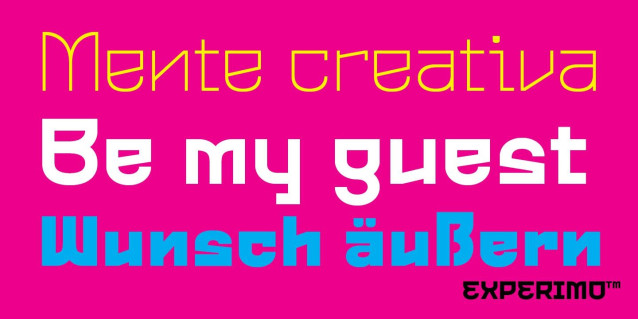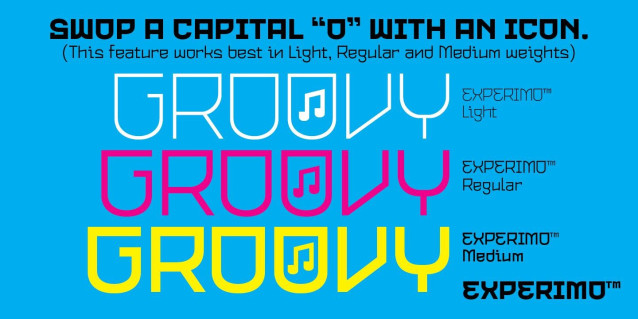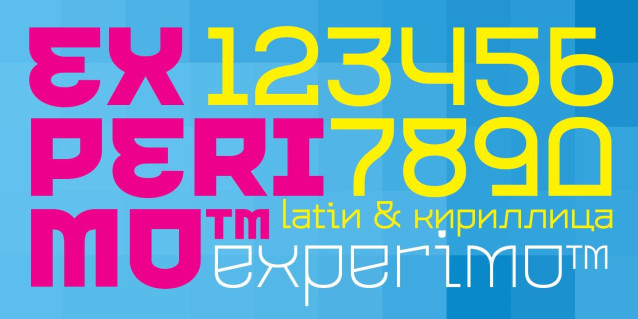
Experimo Font
Experimo Font is an experimental display sans serif font family that blends round and rectangular shapes. This typeface offers 6 weights and styles, each with over 1,325 glyphs, and supports most Latin and Cyrillic languages. Its modern, futuristic, and playful design is ideal for various eye-catching projects. Experimo™ Display Sans also includes OpenType features like case-sensitive marks, punctuations, and mathematical symbols, along with over 100 UX/UI icons in three design options. These features aim to enhance user experience, simplify workflow, and expand typographic choices. Experimo™ is suitable for packaging, infographics, logos, print, movie titles, and digital designs.